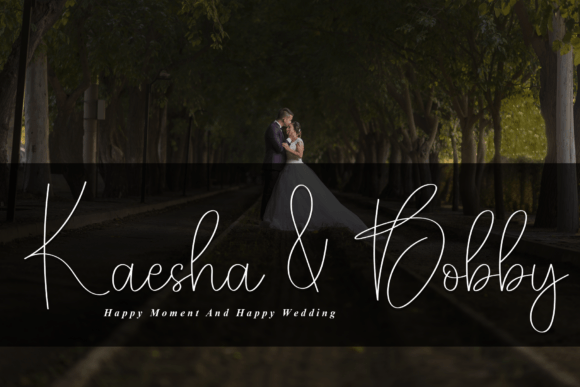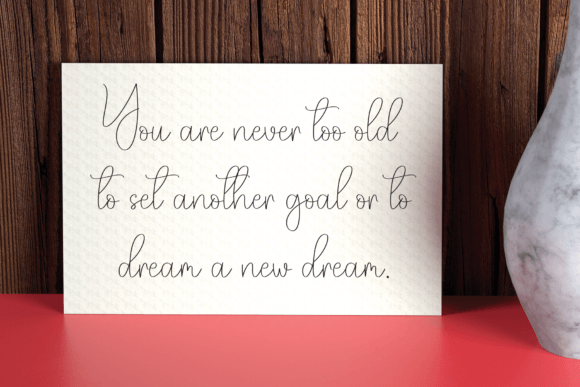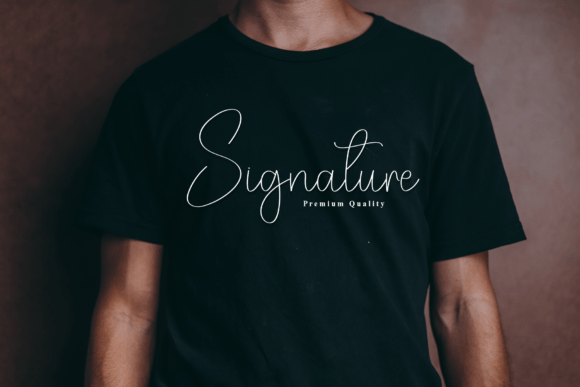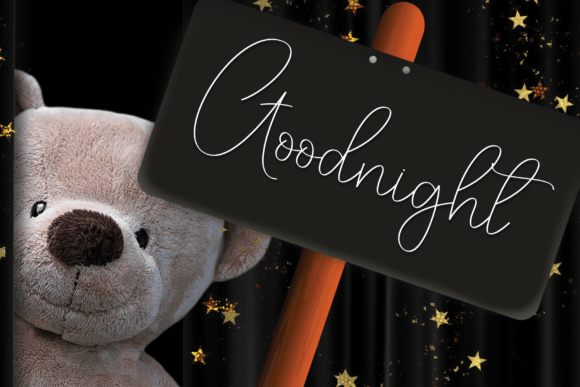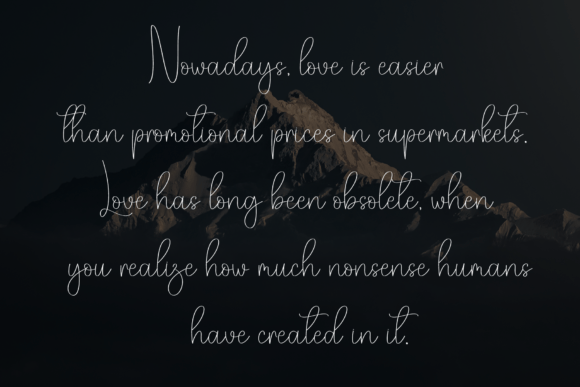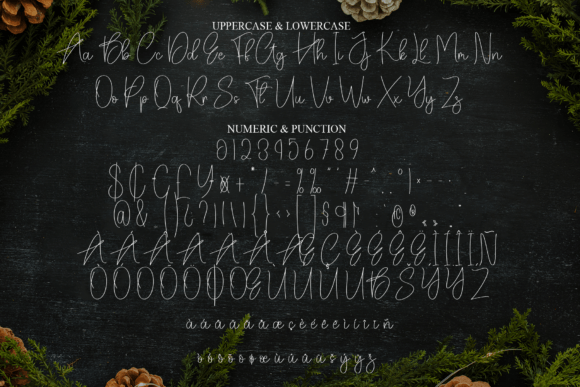
The Grinch Christmas Font: A Charmingly Playful Addition to Your Design Arsenal
Ah, the holiday season. A time for joy, giving, and, let’s be honest, a healthy dose of design stress. I still remember the year I was tasked with creating a whimsical wedding invitation for a client’s holiday-themed nuptials. As I scrolled through font after font, nothing seemed quite right – until I stumbled upon the Grinch Christmas Font. ✨ Its charmingly playful, handwritten display instantly captured the festive spirit I was looking for, and I knew I had found the perfect fit.
- ✅ The Grinch Christmas Font boasts an affable persona that instantly warms up any design.
- ✨ Its sweet and engaging aesthetics make it perfect for crafting heartwarming wedding invitations, endearing cards, or any design that craves a sprinkle of fun.
- 🎉 The font’s playful nature ensures that your designs capture attention while exuding a jovial charm.
While the Grinch Christmas Font is a delightful addition to any design project, there are a few minor quirks to keep in mind:
- ⚠️ The font’s highly decorative nature may not make it the best choice for body text or more formal designs.
- 🤔 Some users may find that the font’s playful alternates and glyphs require a bit of experimentation to get just right.
The Story Behind the Grinch Christmas Font
The Grinch Christmas Font was inspired by the classic tale of the Grinch, with its focus on warmth, kindness, and the joy of the holiday season. While the exact designer may be unknown, their love for the story and its themes shines through in the font’s charmingly playful design.
Q: What makes the Grinch Christmas Font so special?
A: The Grinch Christmas Font’s unique blend of playfulness and warmth makes it perfect for creating heartwarming designs that capture the spirit of the holiday season.
Q: Is the Grinch Christmas Font suitable for body text?
A: While the Grinch Christmas Font is a beautiful addition to any design, its highly decorative nature makes it better suited for headlines, titles, and short text passages rather than body text.